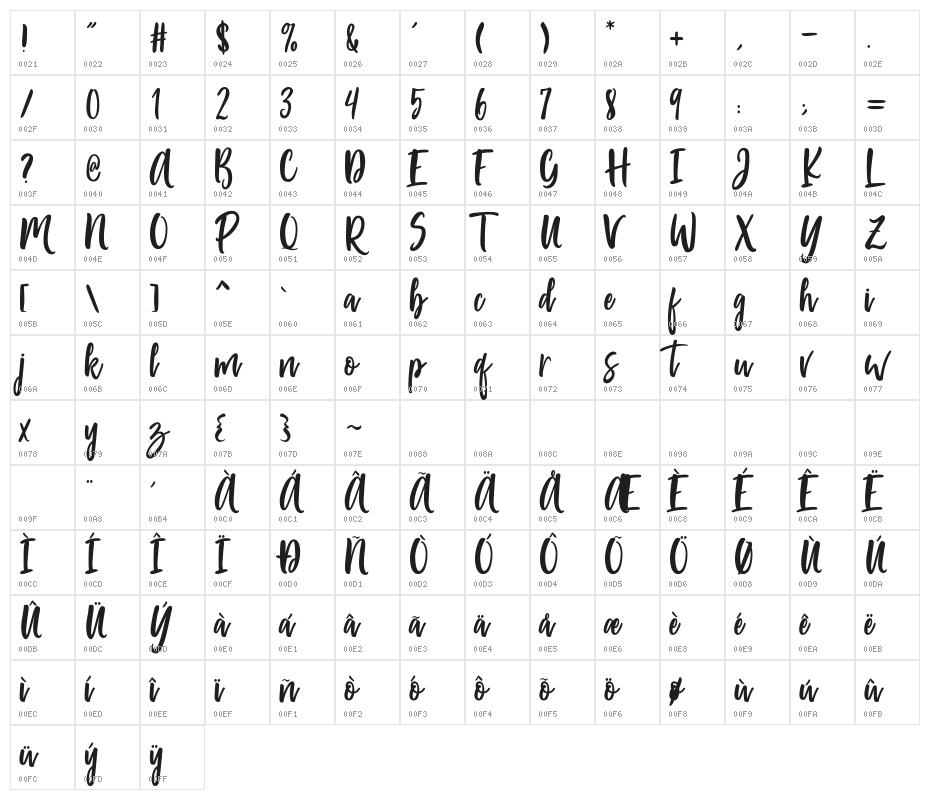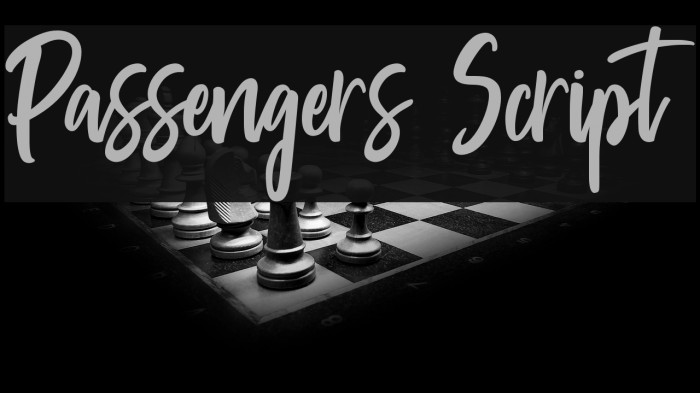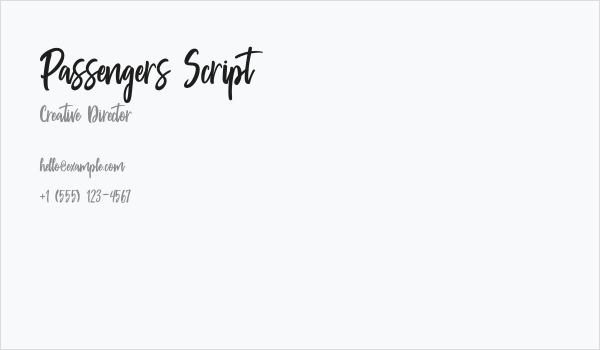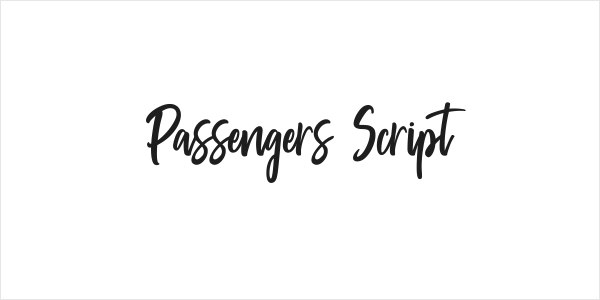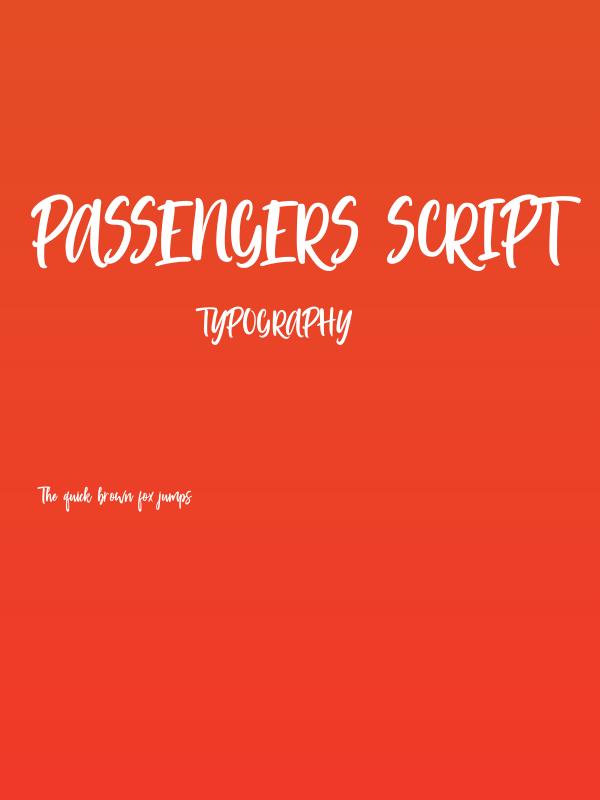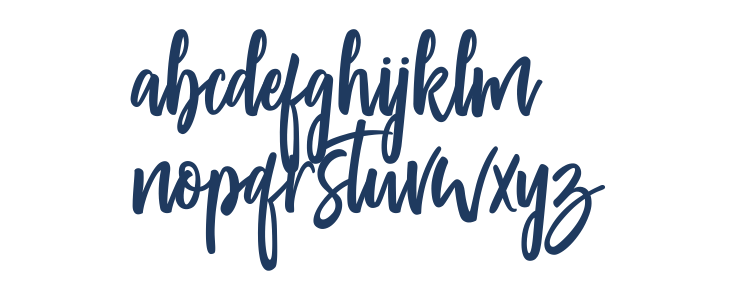
Passengers Script Font
Passengers Script Description
This font features a lively and energetic script style, characterized by its bold, flowing strokes and a handwritten appearance. The uppercase letters are tall and slightly slanted, giving a sense of movement and dynamism. The lowercase letters maintain a consistent rhythm, with loops and curves that enhance its playful nature. Numbers and special characters follow the same fluid style, ensuring uniformity across all glyphs. The overall impression is one of casual elegance, making it suitable for projects that require a personal touch. The font's boldness ensures readability while its script nature adds a touch of sophistication.
| Proposed Projects | Ideal for greeting cards, invitations, branding, and social media graphics. |